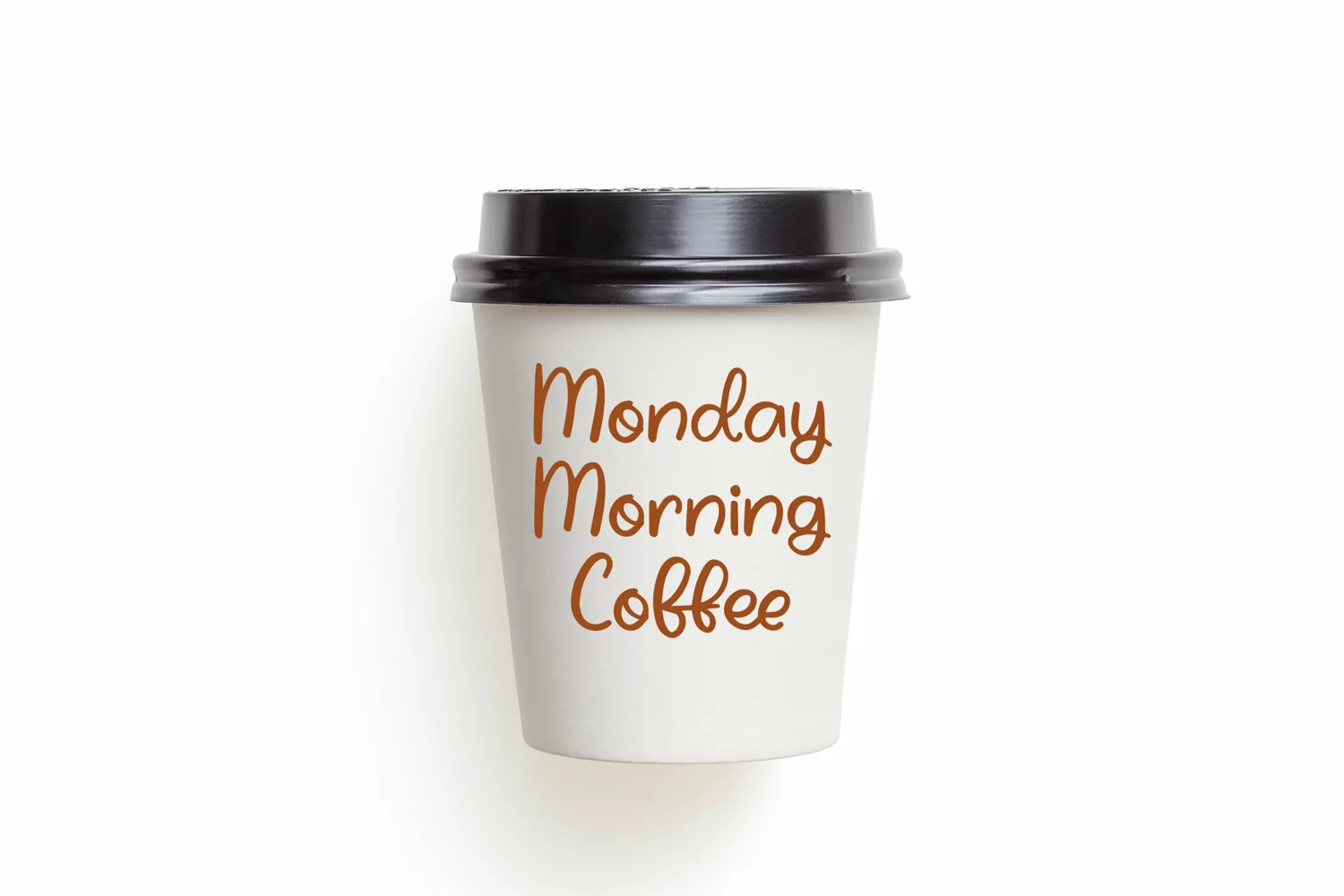
Belly Morning - Cute Handlettering Font that contain lowercase, uppercase, symbol, and also support multi language. There’s a lot ligatures in this font. This Font also comes with ligatures, alternates and many more. this font suitable for fashion, branding, catalog and other design what you want.